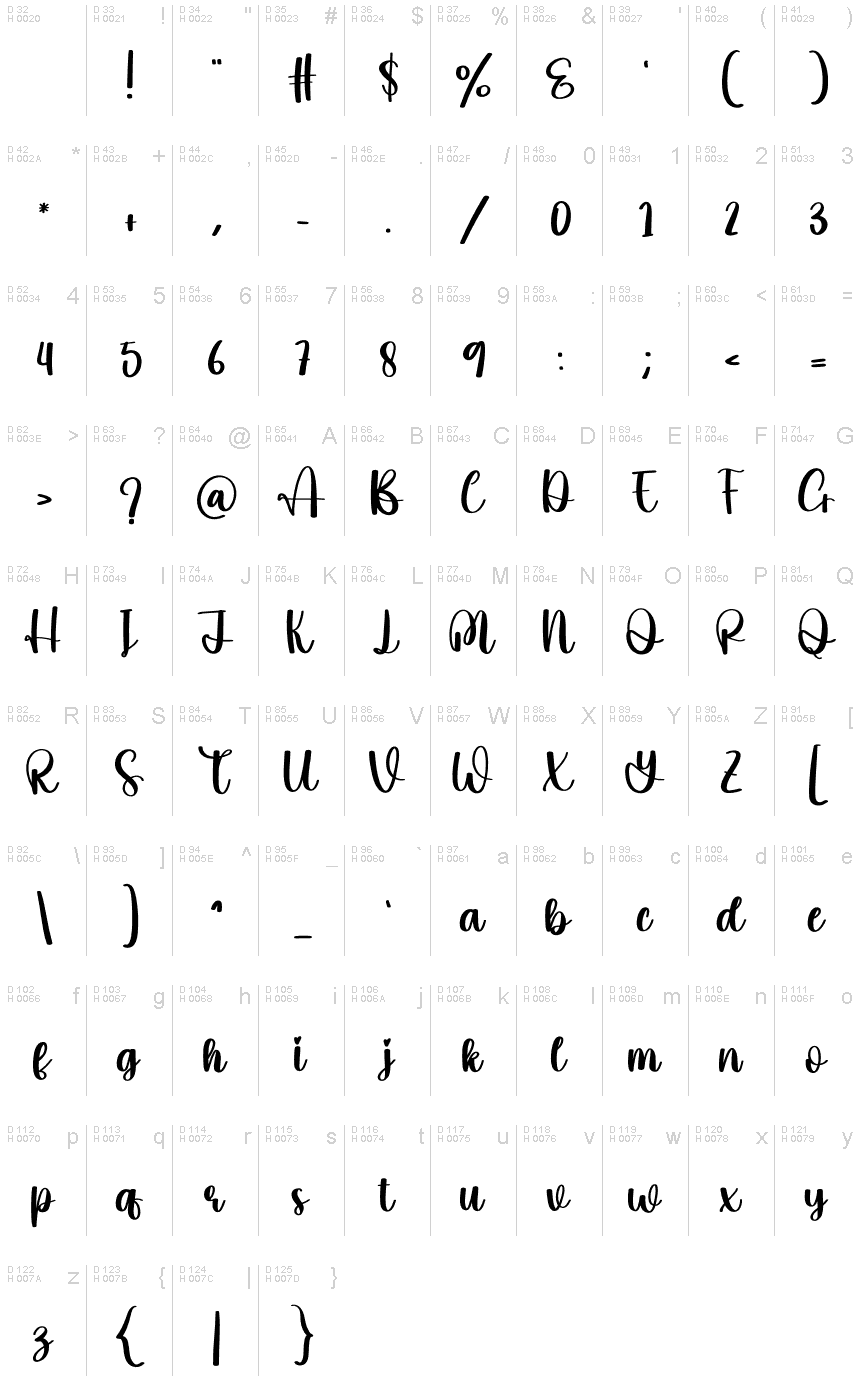
Asian
Asian, designed by Scratchones, is a font that captures the essence of personal touch with its handwritten style. This font offers an intimate and artisanal aesthetic, inviting warmth and character into any creative project. The fluidity of its strokes suggests elegance and versatility, while the playful heart embellishment hints at a touch of whimsy. Perfect for invitations, branding, or editorial designs seeking a blend of sophistication with a personal flair, Asian stands out for its ability to add a human element to digital canvases.
Whether you're crafting heartfelt wedding stationary or looking to infuse your graphic designs with personality, Asian is poised to deliver an authentic handwritten feel that resonates in our digital age.